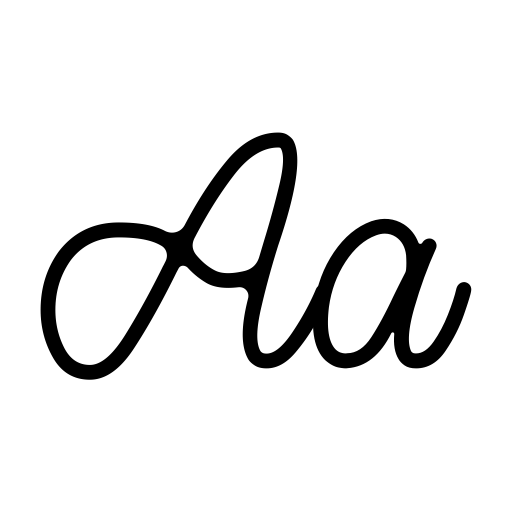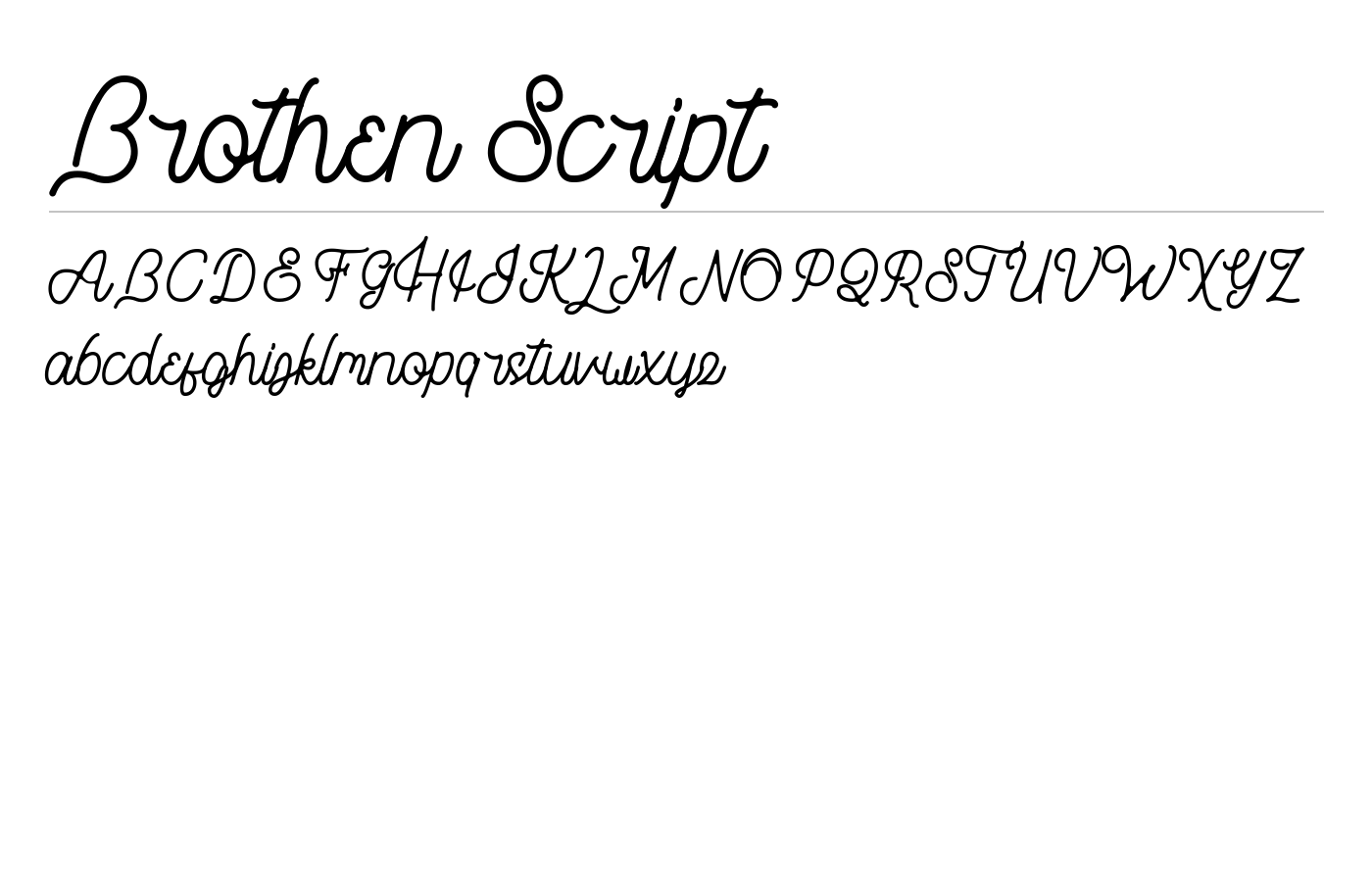
Brothen Script is a delicate and elegant handwritten script font featuring smooth, flowing strokes with moderate contrast and a slightly narrow width. Its graceful letterforms, with unique loops and curls, create a refined and personal feel perfect for invitations, branding, and stylish editorial designs. This font works well to add a touch of sophistication and warmth to projects that require a handwritten yet polished look.
Brothen Script Font
About Brothen Script Font
| Font family | Brothen Script Font |
| Designer | Akaitype Studio |